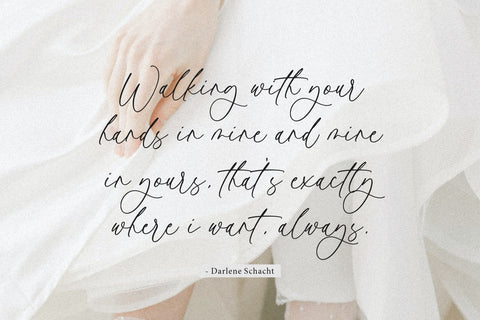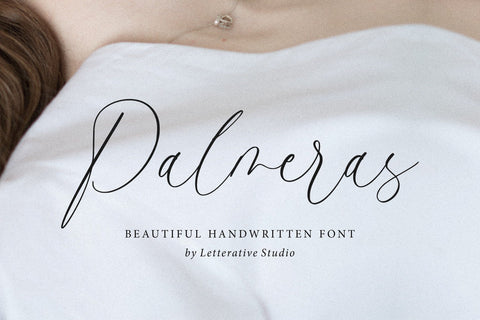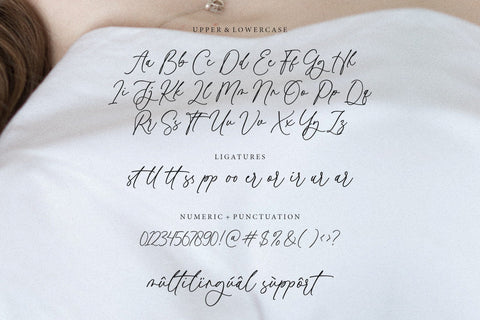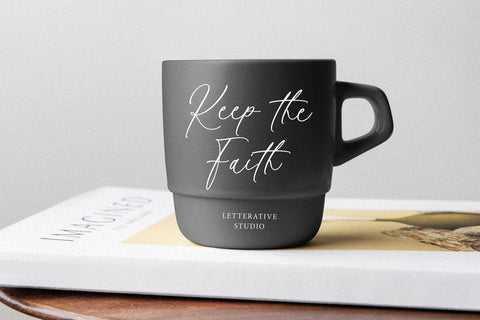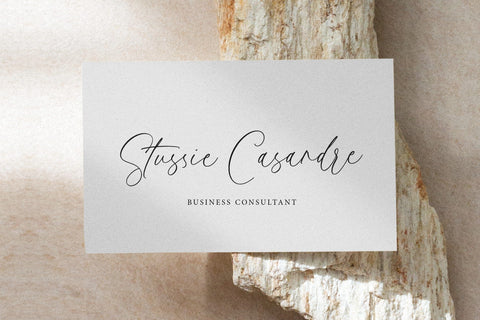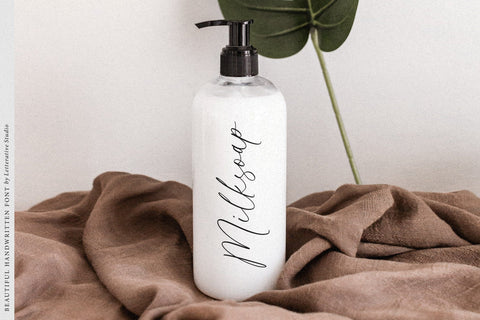
Palmeras Beautiful Handwritten font
Introducing by Letterative Studio : Palmeras Font
Palmeras is a Beautiful Handwritten font. Ideal for elegant logos, wedding stationery, websites, personal branding and any other projects requiring a handwritten and luxurious touch.